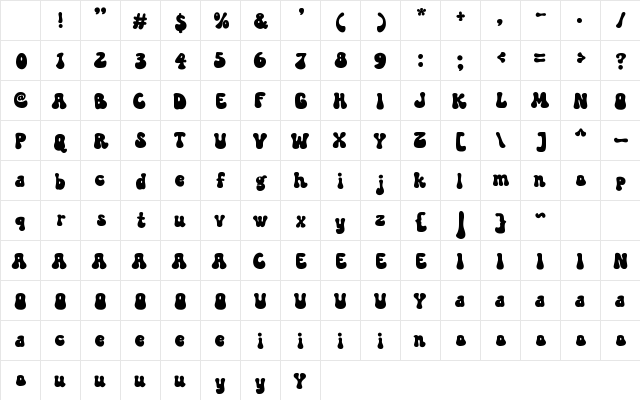
Complete Kindnes Regular glyph index. Displaying only characters natively supported by Kindnes Regular font.
Kindnes is a composed and adaptable typeface that performs quietly and consistently across a wide range of design contexts.